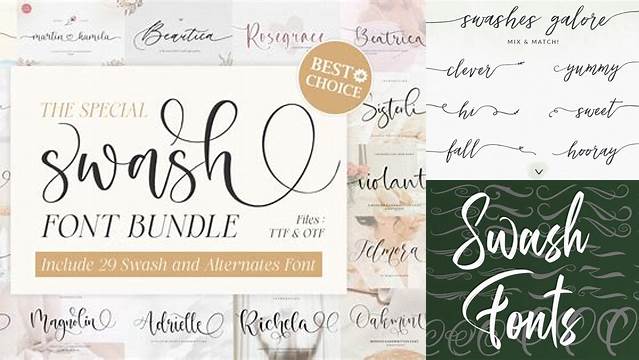
Free Swash Script Fonts: Elevate Your Designs
Hey guys! Are you looking to add a touch of elegance and personality to your projects? Free swash script fonts might be just what you need! Swashes, those decorative extensions on letters, can transform ordinary text into something truly special. In this article, we'll dive deep into the world of free swash script fonts, exploring their uses, benefits, and where to find the best ones. We'll also cover some tips and tricks for using them effectively. Let’s get started and unleash your creativity!
1. What are Swash Script Fonts?
Let's start with the basics: what exactly are swash script fonts? These fonts are designed to mimic handwriting, with flowing strokes and connecting letters. The “swashes” are the extra decorative strokes or flourishes that extend from the letters. Think of them as the curly cues and loops that make calligraphy so beautiful. Free swash script fonts can add a touch of sophistication and flair to any design project, whether it’s a wedding invitation, logo, or website header. The beauty of free swash script fonts lies in their ability to convey a sense of handcrafted elegance and personalized touch. These fonts evoke emotions of warmth, creativity, and attention to detail, making them an excellent choice for projects that aim to make a lasting impression. For instance, using a free swash script font on a wedding invitation can instantly communicate a sense of romance and formality, while incorporating one into a logo can elevate a brand’s image with a touch of sophistication and artistry. Understanding the essence of swash script fonts helps you appreciate their versatility and potential in design.
2. The Allure of Free Swash Script Fonts
Now, why should you be interested in free swash script fonts? Well, the main draw is, of course, the price! But beyond that, these fonts offer a fantastic way to experiment with different styles without breaking the bank. You can explore a wide range of designs, from elegant and formal to playful and whimsical. This makes free swash script fonts a valuable resource for designers of all levels. The allure of free swash script fonts extends beyond their cost-effectiveness. They are a gateway to a world of creativity and design possibilities, allowing you to explore various styles and aesthetics without financial constraints. For aspiring designers and seasoned professionals alike, free swash script fonts provide a sandbox for experimentation, encouraging the discovery of unique design elements and enhancing overall skill sets. The availability of these fonts democratizes the design process, making high-quality typography accessible to everyone. Whether you are creating a logo, designing a website, or crafting social media graphics, free swash script fonts offer a versatile palette to bring your visions to life.
3. Best Uses for Swash Script Fonts
Where do free swash script fonts really shine? They're perfect for invitations, logos, branding materials, website headers, and social media graphics. Basically, anything that needs a touch of elegance and personality. Think wedding invitations, business cards, or even blog titles! The best uses for free swash script fonts span across various design domains, each benefiting from their unique aesthetic appeal. For invitations, especially wedding and event invitations, they convey a sense of sophistication and romance. In logo design, a well-chosen swash script font can add a personalized and memorable touch to a brand's identity. Branding materials like business cards and letterheads can also benefit from the elegance of these fonts, creating a cohesive and professional image. Website headers and social media graphics, on the other hand, can use free swash script fonts to capture attention and convey a brand's personality, making content more engaging and visually appealing. The versatility of free swash script fonts allows them to be applied in numerous creative contexts, making them a valuable asset in any designer's toolkit.
4. Finding High-Quality Free Swash Script Fonts